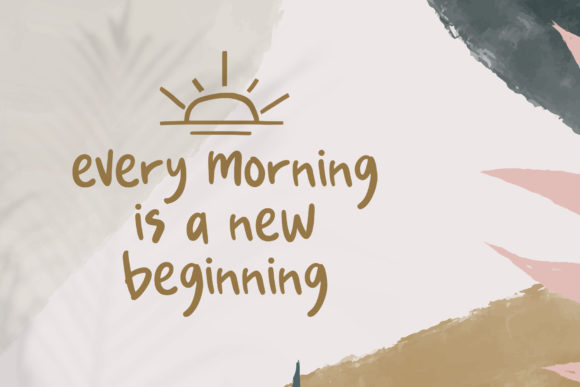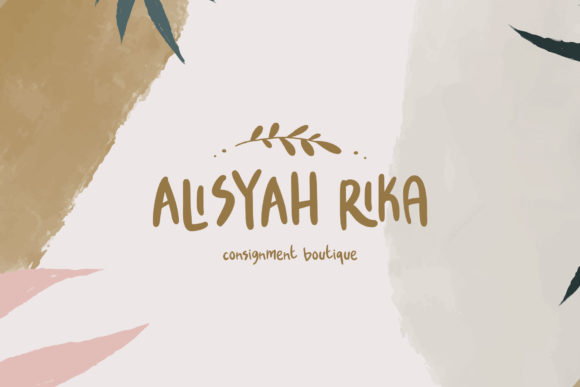
Market Written Font
db-ku.com - Script & Handwritten -- Market Written is a casual and quirky handwritten font. It works well for various design ideas that require neat and friendly vibes. This font is PUA encoded which means you can access all of the glyphs and swashes with ease.